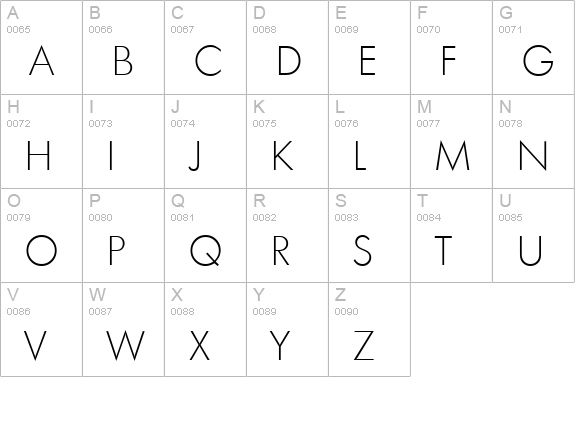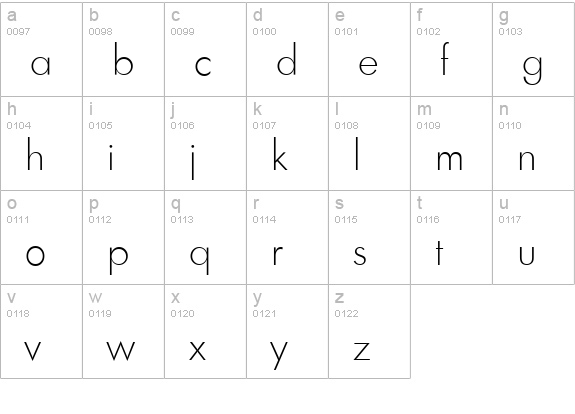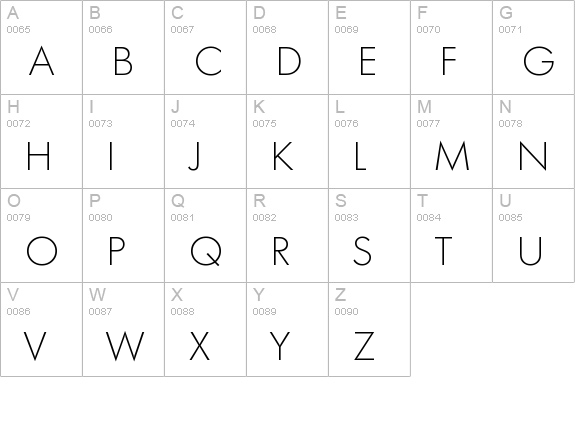
LimerickSerial-Xlight-Regular is the standard, neutral variant in the LimerickSerial typeface family \xE2\x80\x94 well suited to general body text, paragraphs, and standard typographic work.
LimerickSerial-Xlight-Regular is a beautifully crafted font that exudes elegance and sophistication. Its delicate curves and clean lines make it perfect for a wide range of design projects, from invitations to branding to editorial layouts. This font strikes the perfect balance between modernity and timelessness, making it a versatile choice for any designer looking to add a touch of class to their work. And the best part? LimerickSerial-Xlight-Regular is available for free download at FontsMarket.com! This means you can easily access this stunning font without any cost, making it a valuable addition to your font library. Don't miss out on the opportunity to elevate your designs with this exceptional typeface - download LimerickSerial-Xlight-Regular today and let your creativity shine!